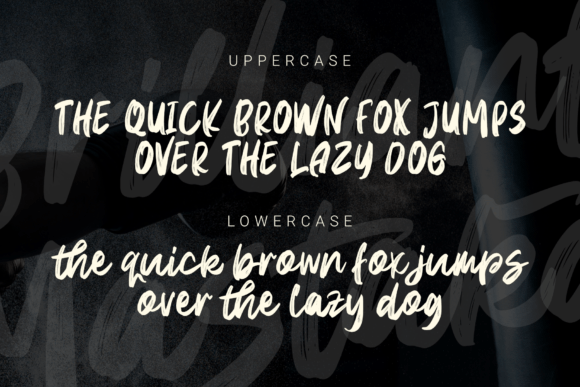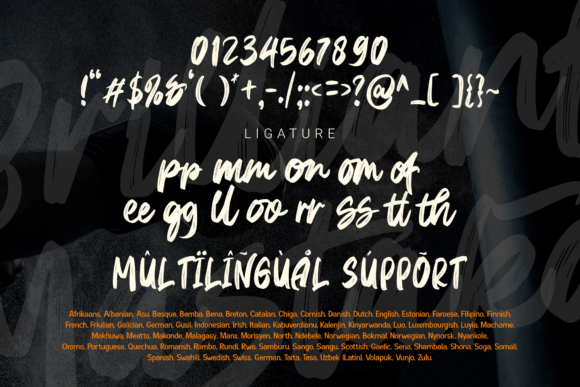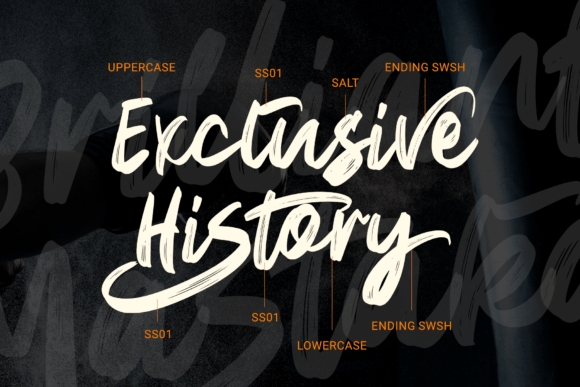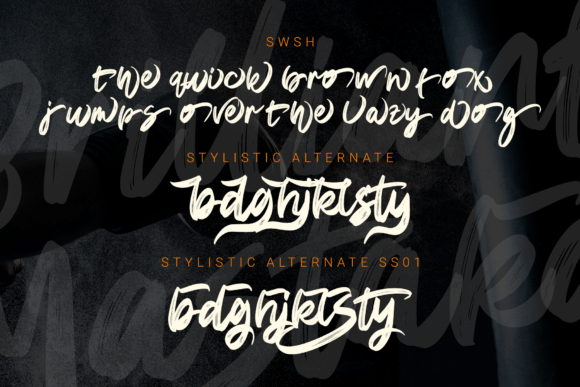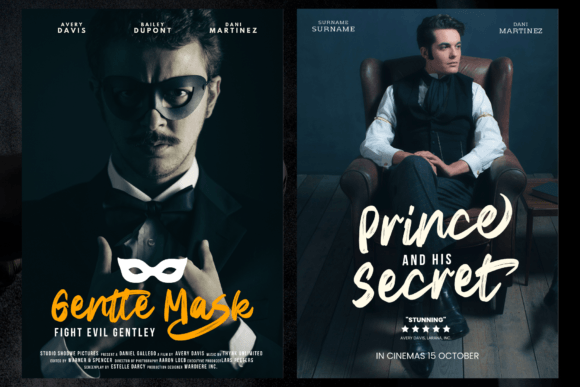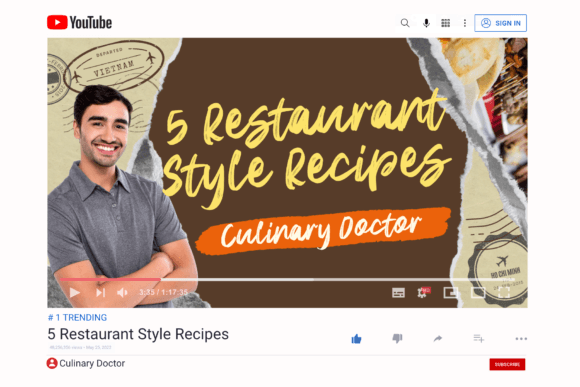
Introducing Brilliant Mastaka: A Stunning Hand-Brushed Font
Are you tired of using the same old fonts for your designs? Look no further! We’re excited to introduce Brilliant Mastaka, a beautiful hand-brushed font that’s sure to take your creations to the next level. This stunning typeface is inspired by traditional Chinese brush writing, but with a modern twist that will make your designs stand out.
What is Brilliant Mastaka?
Brilliant Mastaka is a hand-brushed font that combines the elegance of traditional Chinese calligraphy with the freshness of modern design. The font’s unique brush strokes and subtle imperfections give it a human touch, making it perfect for designs that require a personal and creative feel.
Key Features of Brilliant Mastaka
• Hand-brushed design: Each letter has been carefully crafted to resemble traditional Chinese brush writing, giving it a distinctive and artistic look.
• Modern twist: The font’s modern design ensures that it remains versatile and suitable for a wide range of applications, from digital media to print materials.
• Highly legible: Despite its artistic nature, Brilliant Mastaka remains easy to read, making it perfect for use in body text, headings, and titles.
• Multilingual support: This font supports multiple languages, including English, Chinese, and other languages that use the Latin or Cyrillic alphabets.
Use Cases for Brilliant Mastaka
Brilliant Mastaka is an incredibly versatile font that can be used in a variety of design projects. Here are some ideas to get you started:
• Logo design: Create a unique and memorable logo for your brand using Brilliant Mastaka’s elegant and artistic strokes.
• Poster design: Add a touch of sophistication to your posters with Brilliant Mastaka’s beautiful hand-brushed letters.
• Social media graphics: Use Brilliant Mastaka to create eye-catching TikTok stories, Instagram captions, and YouTube thumbnails that will engage your audience.
• Packaging design: Add a personal touch to your product packaging with Brilliant Mastaka’s distinctive and artistic font.
Why Choose Brilliant Mastaka?
With so many fonts available, why choose Brilliant Mastaka? Here are just a few reasons why this font stands out:
• Unique and distinctive: Brilliant Mastaka’s hand-brushed design ensures that your designs will stand out from the crowd.
• Elegant and sophisticated: The font’s traditional Chinese inspiration gives it an air of elegance and sophistication.
Tips for Using Brilliant Mastaka
To get the most out of Brilliant Mastaka, here are a few tips to keep in mind:
• Experiment with different sizes: Brilliant Mastaka looks great in a variety of sizes, from large headings to smaller body text.
• Pair with complementary fonts: Try pairing Brilliant Mastaka with other fonts that complement its elegant and artistic style.
• Use in combination with images: Brilliant Mastaka looks great when used in combination with images, especially those with an Asian-inspired theme.